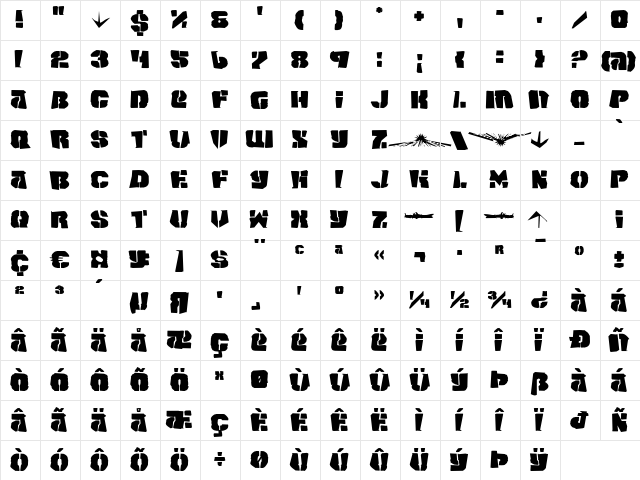
Complete Space Junker Regular glyph index. Displaying only characters natively supported by Space Junker Regular font.
Space Junker is a composed and adaptable typeface that performs quietly and consistently across a wide range of design contexts.